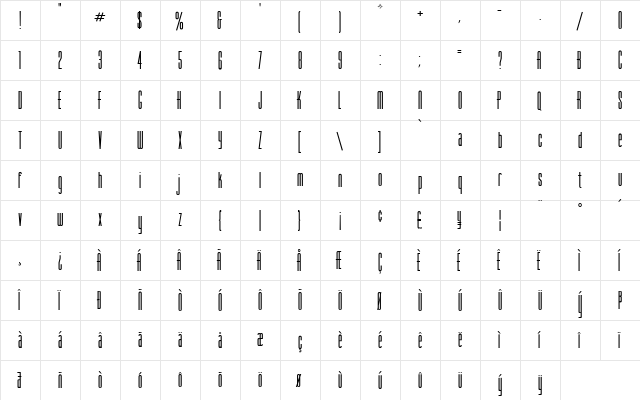
VarickaLC Regular Font Preview
VarickaLC Regular
| Version | Version 1.000 02/13/2010 Based on 'Varick'. From "Decorative Condensed Alphabets", by Dan Solo, Page 94. The lower case has been newly created |
Design Context for VarickaLC Typeface
VarickaLC offers clean, dependable letterforms without strong stylistic allegiance, making it a practical choice for designers who need flexibility.